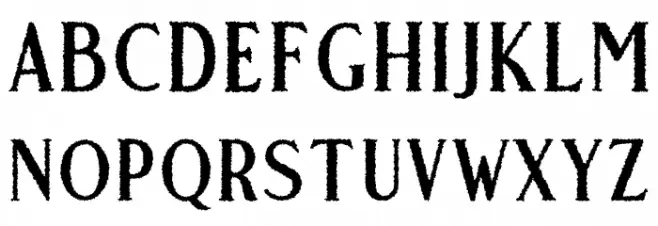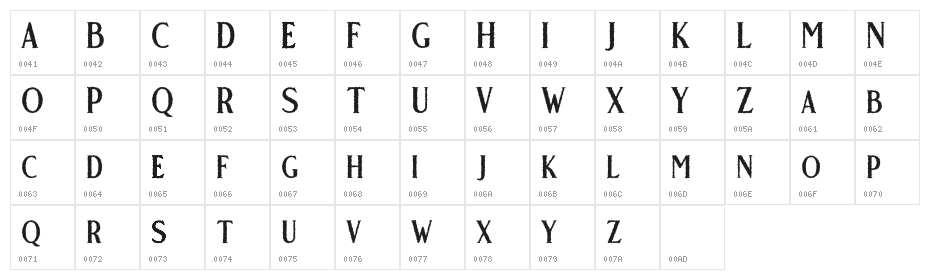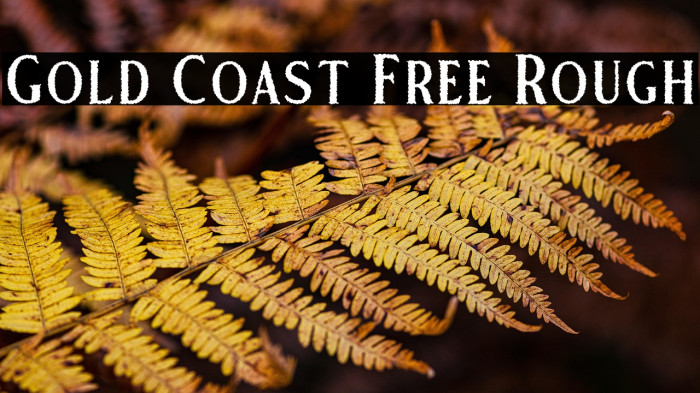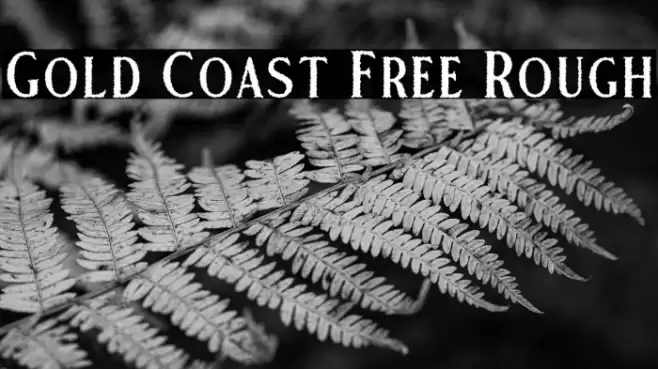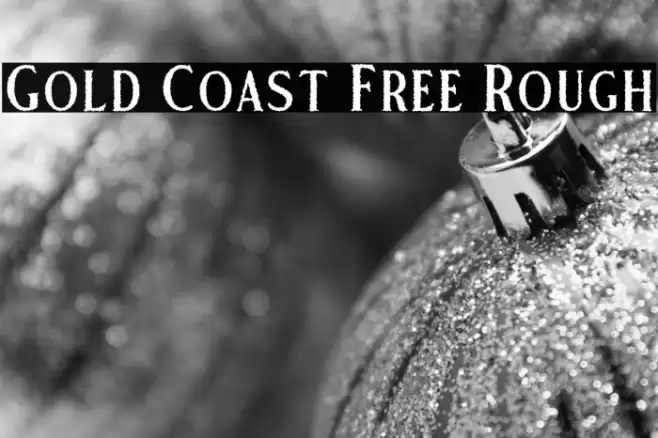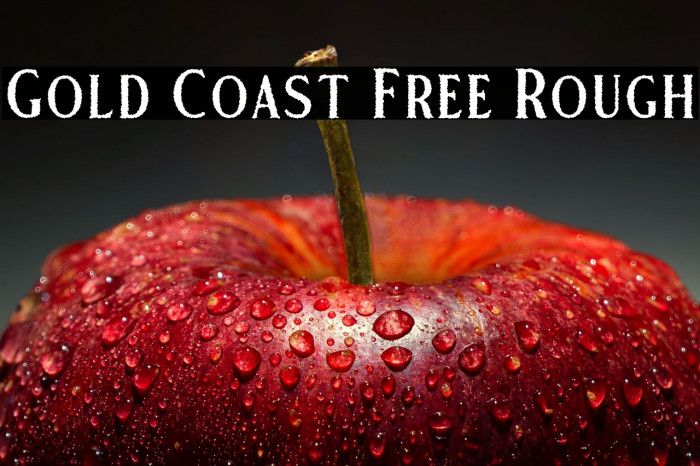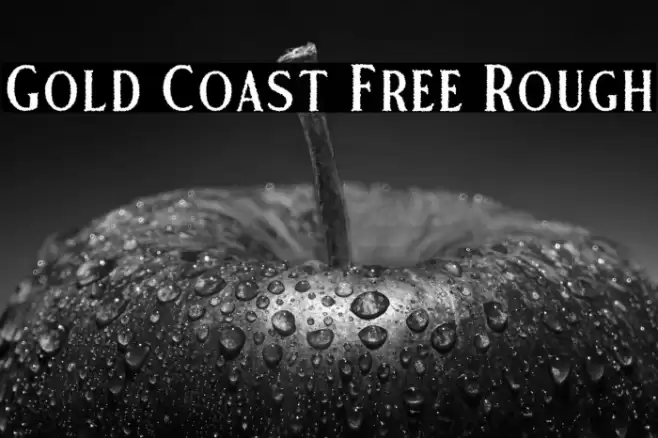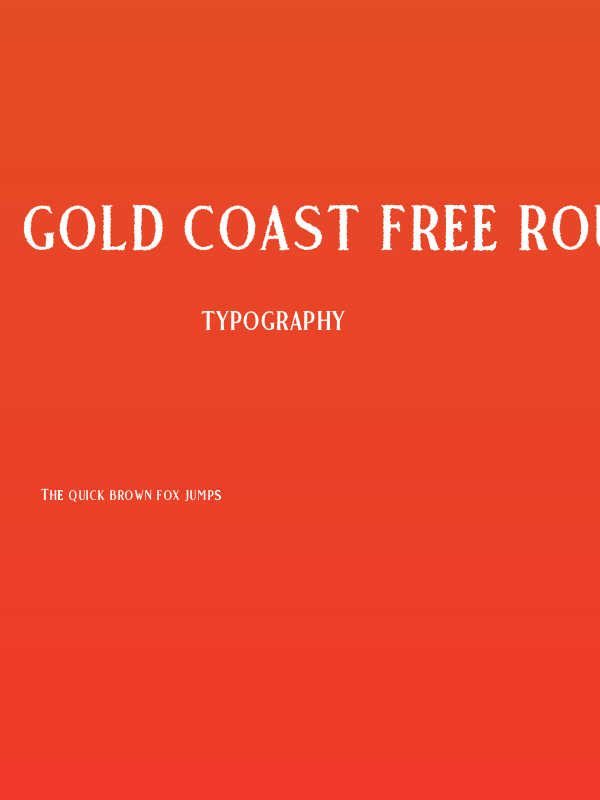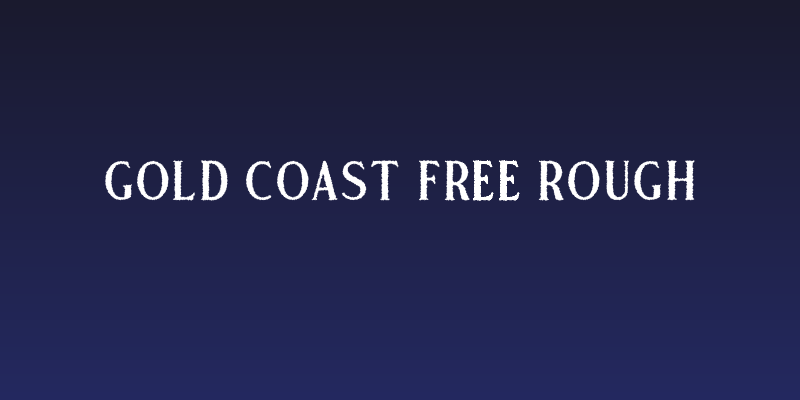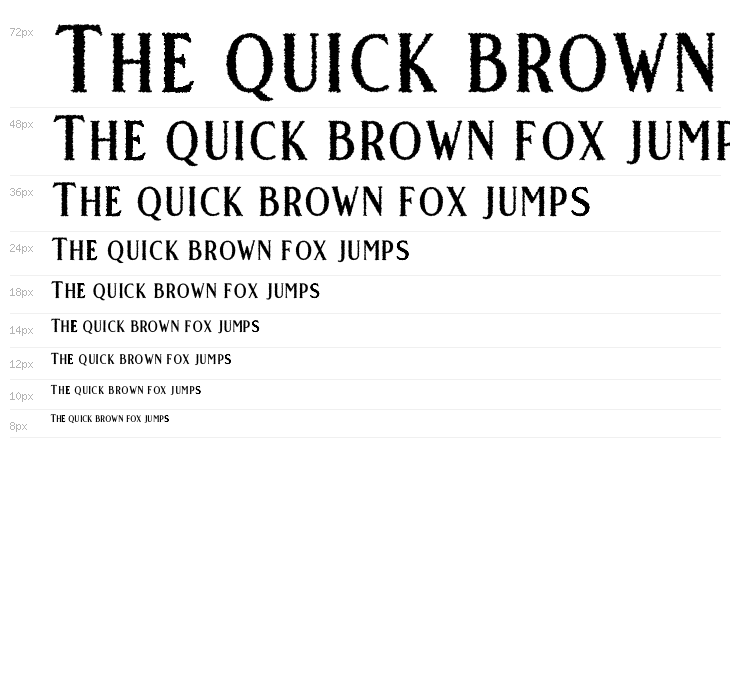
Gold Coast Free Rough Font
Gold Coast Free Rough Description
This font features a rough, textured appearance that gives it a handcrafted and vintage feel. The letters are bold and slightly irregular, with a distressed look that adds character and depth. The uppercase letters are prominent and commanding, while the lowercase letters maintain a consistent style that complements the overall design. The numbers and special characters follow the same aesthetic, ensuring a cohesive look across all text. This font's unique style makes it ideal for projects that require a rustic or artisanal touch.